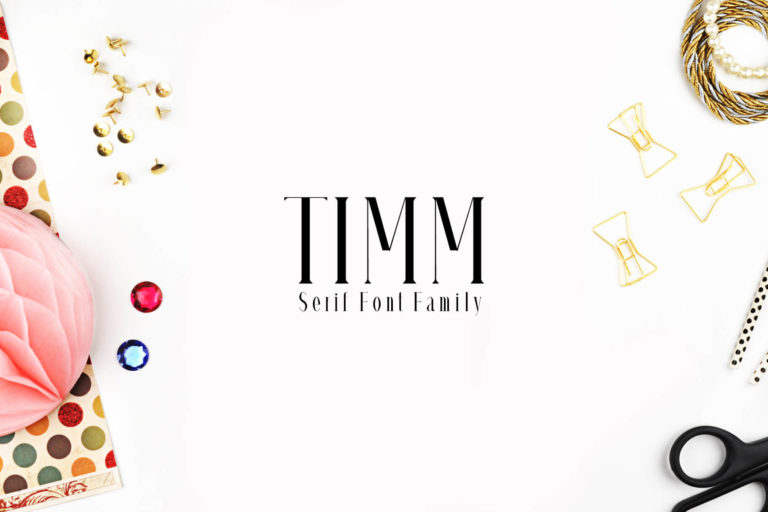
- Timm Serif Typeface
Timm Regular
Timm Thin
Timm Light
Timm Bold
Timm Serif Typeface is decorative and beautiful serif font family of 4 weights and it features unique and modern serif look and feel.
Perfect for gorgeous logos & titles, layouts & content, or large & small scale, It looks gorgeous in all caps with a wide-set spacing if you want to try a classy look, or beautiful on its own in capital and lowercase letters for something completely timeless.
- Font Weight: Regular, Thin, Bold and Extra Bold
- Extras: Uppercase Multilingual Letters, Lowercase Multilingual Letters, Numbers & Punctuation + Alternatives.